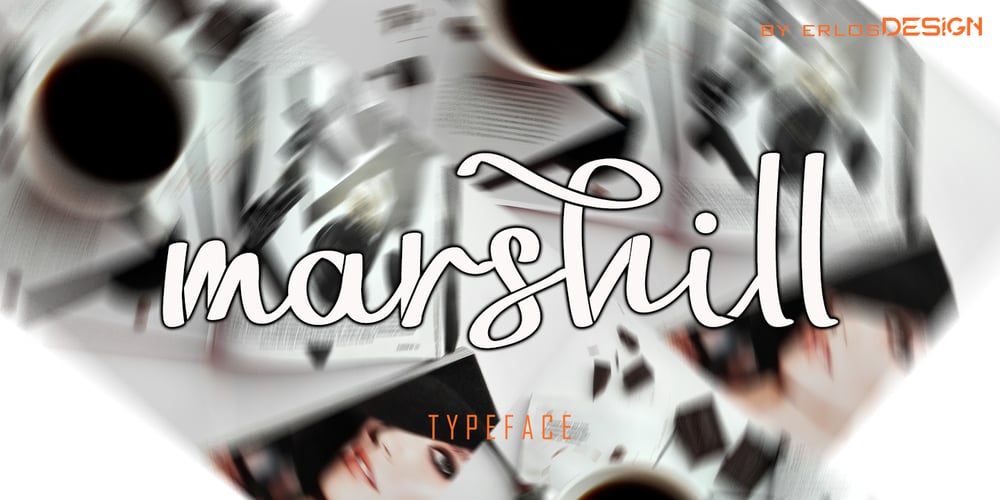
Marshill
Marshill Font Family was designed by Erlangga Suherman and published by ErlosDesign. Marshill contains 1 styles and family package options. Marshill is an elegant and flowing handwritten font. It is PUA encoded which means you can access all of the glyphs and swashes with ease! It features a varying baseline, smooth lines, gorgeous glyphs and stunning alternates. It maintains its classy calligraphic influences while feeling contemporary and fresh. Fall in love with this font and bring your projects to the highest levels!